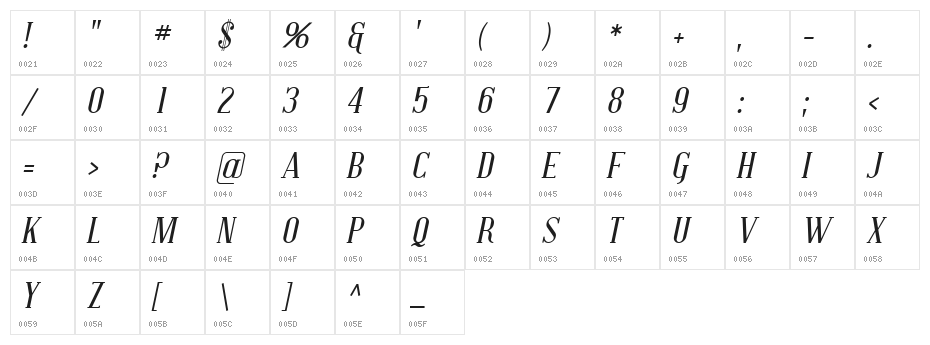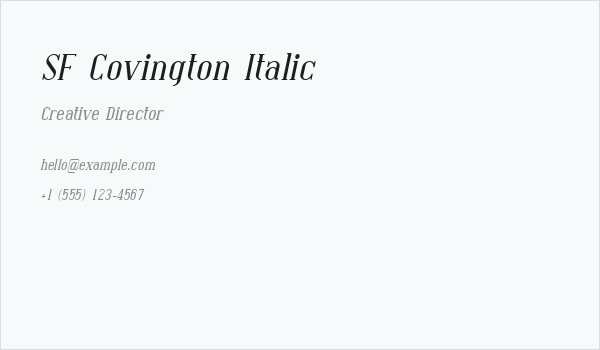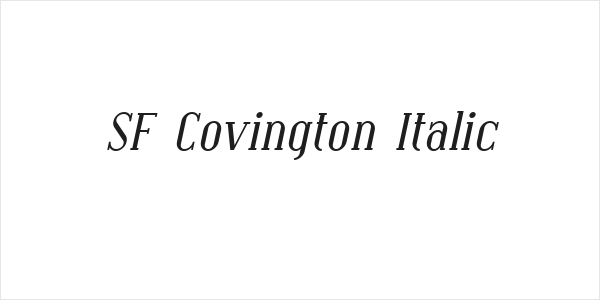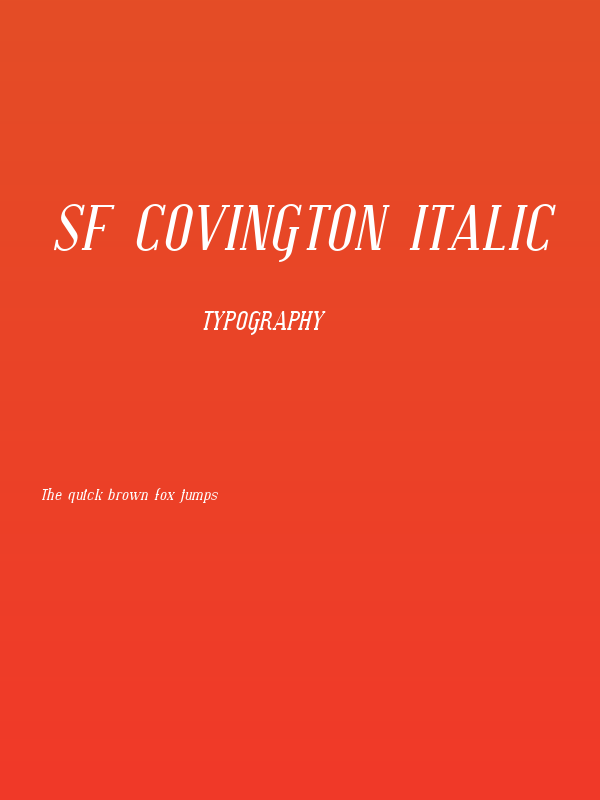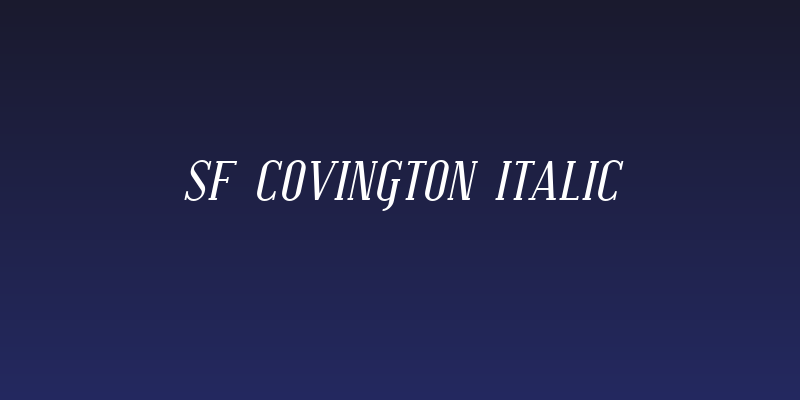
SF Covington Italic Font
SF Covington Italic Description
This font exhibits a classic and elegant italic style, characterized by its smooth, flowing lines and slightly condensed letterforms. The strokes are moderately thick, providing a balanced contrast that enhances readability while maintaining a sophisticated appearance. The uppercase letters are tall and commanding, while the lowercase letters are more rounded and approachable. The numerals are consistent with the overall style, offering clarity and precision. Special characters are well-integrated, ensuring versatility across various applications.
| Use Case | Headlines, Logos, Editorial design |
| Proposed Projects | Ideal for projects requiring a touch of elegance and sophistication, such as wedding invitations, luxury branding, editorial design, and high-end product packaging. |